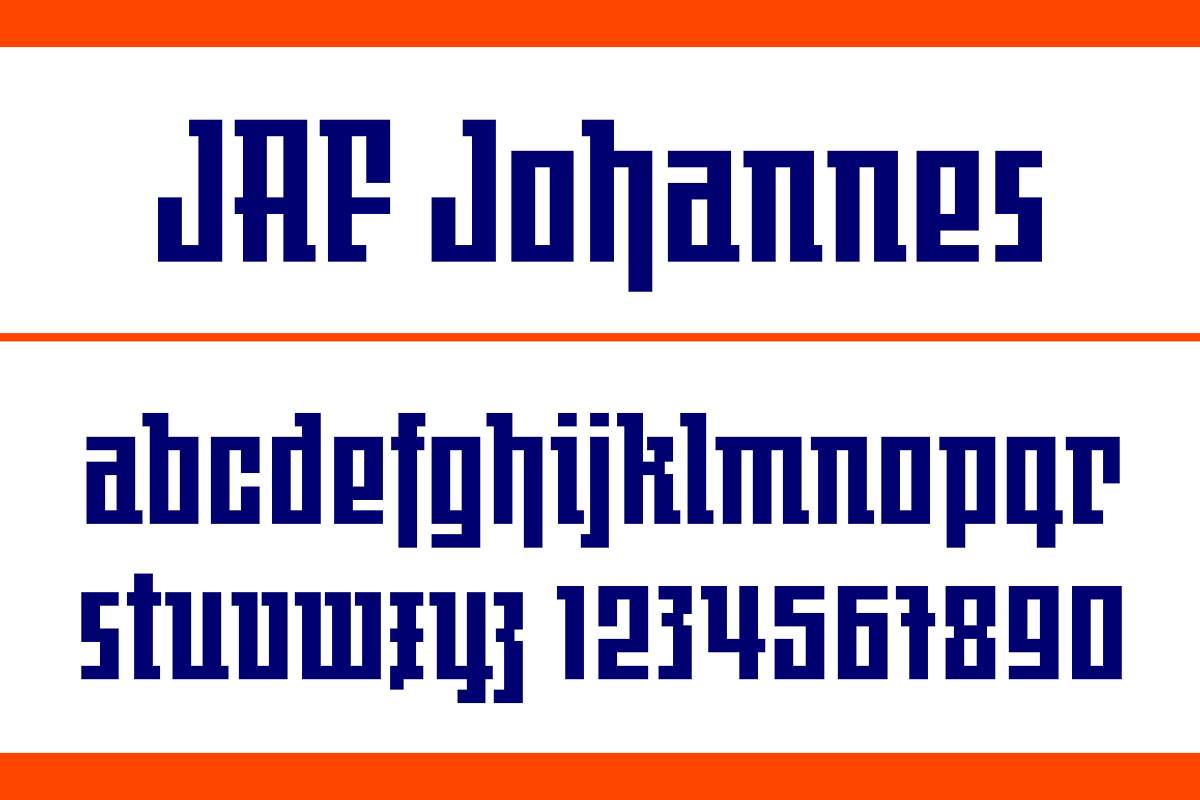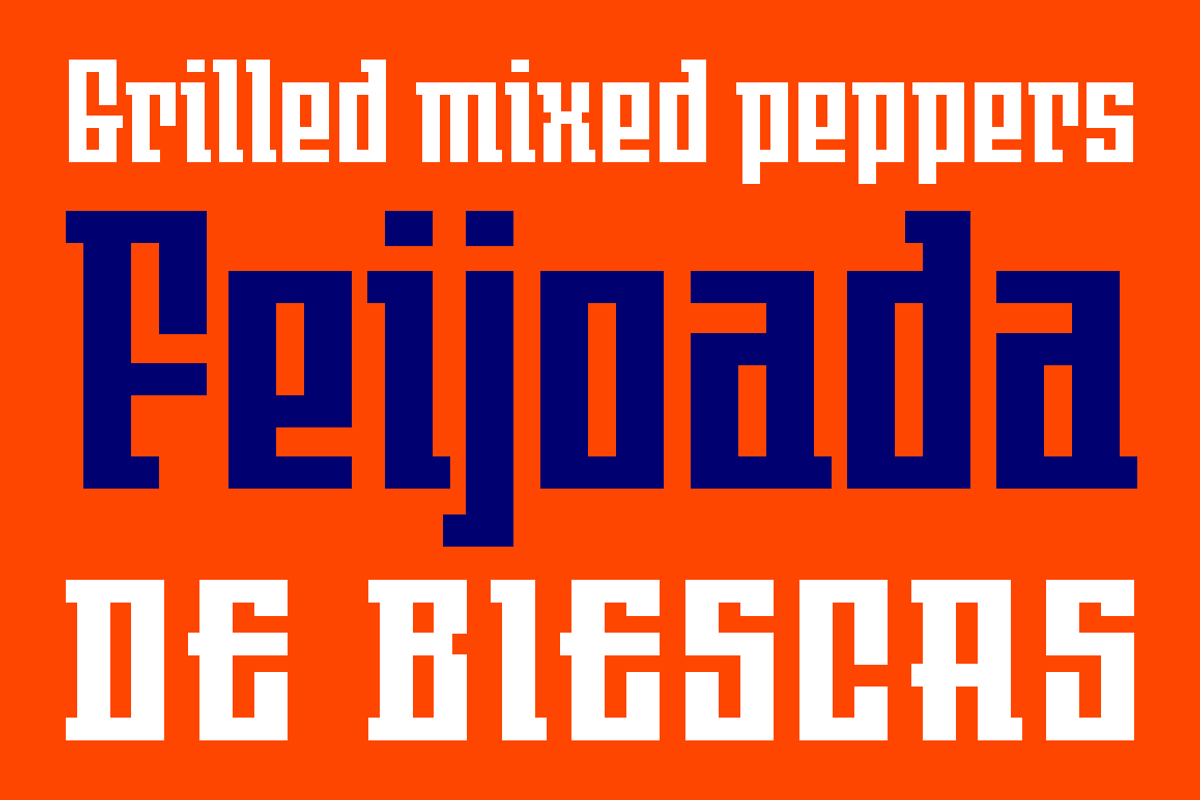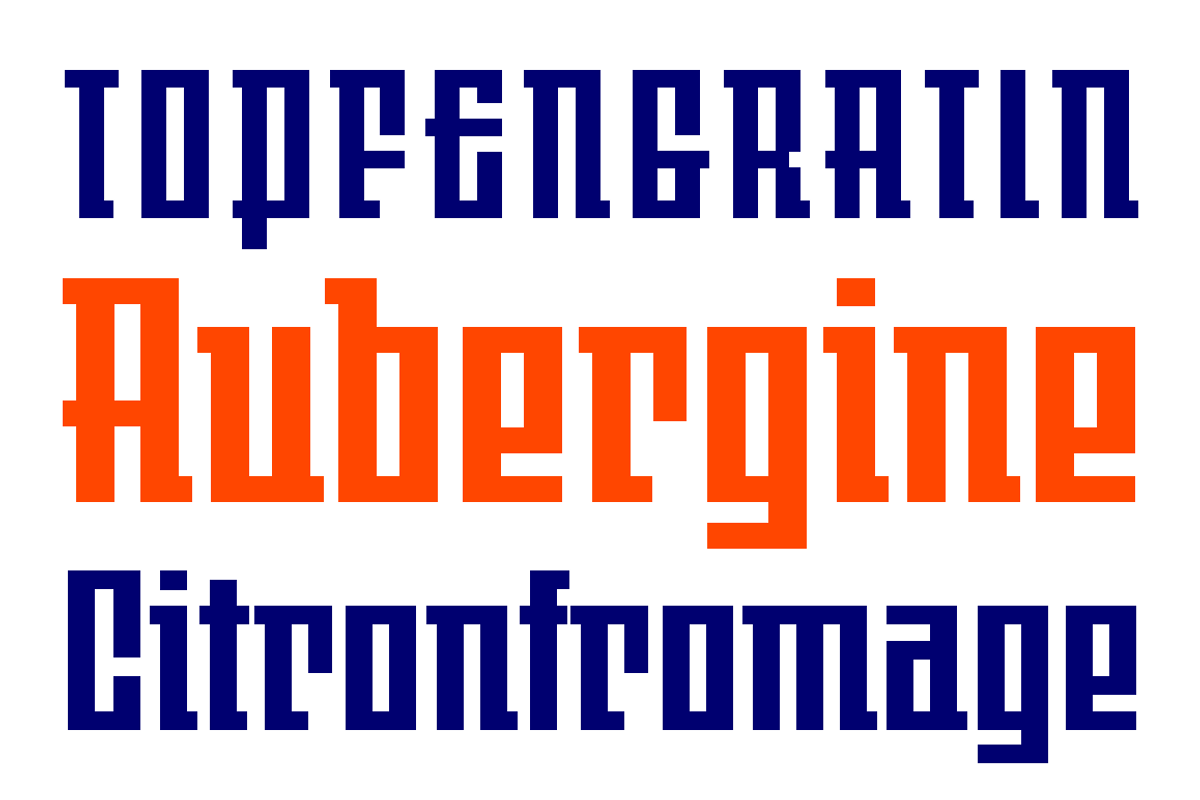
JAF Johannes
Design: Shoko Mugikura & Tim Ahrens, 2015
Seemingly “Techno meets Blackletter”, it is hard to believe that this design dates back to the 1930s. Based on the Johannes-Type designed by Johannes Schulz for the Genzsch & Heyse type foundry in Hamburg, we have digitized and extended this distinctive and unusual typeface. JAF Johannes Original is a faithful revival of the original design while JAF Johannes features re-designed contemporary shapes for some letters.